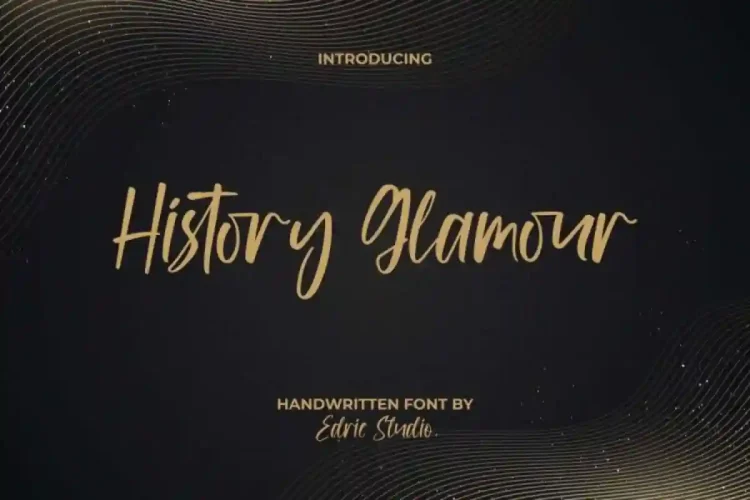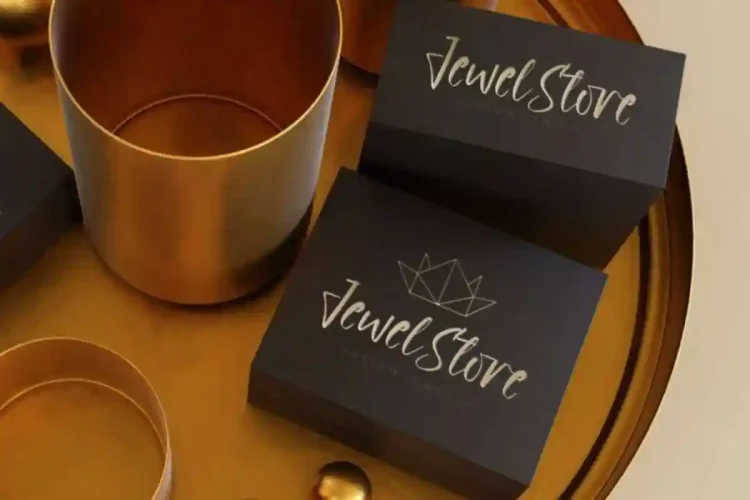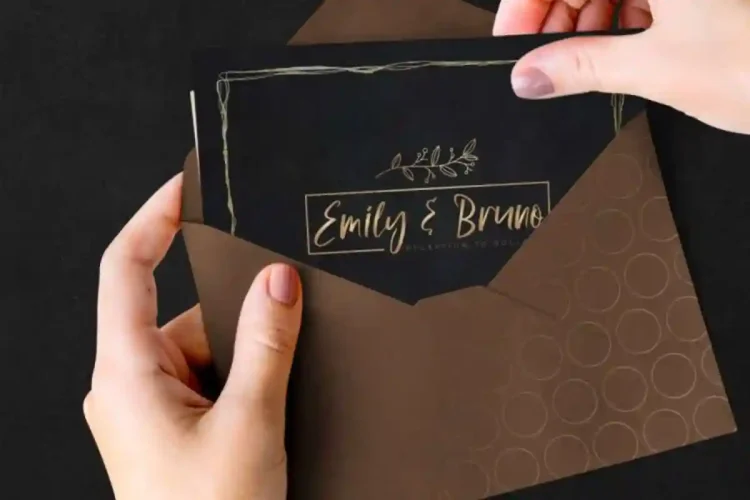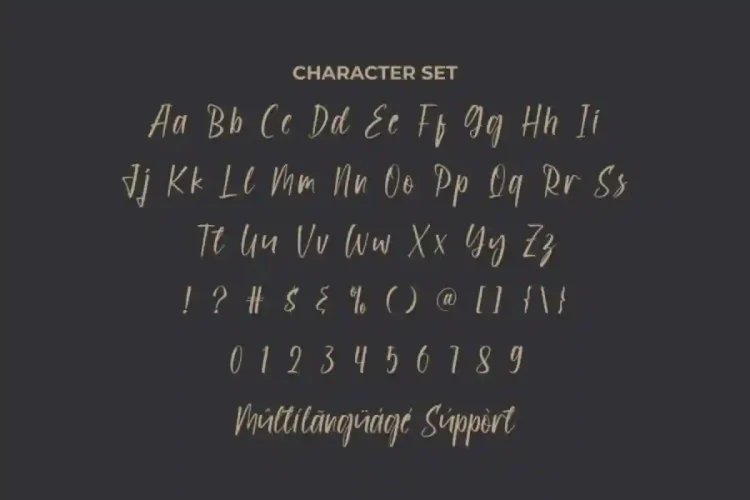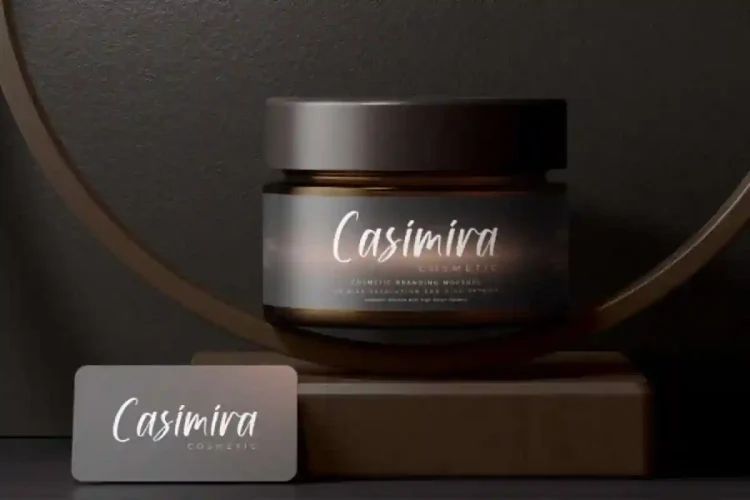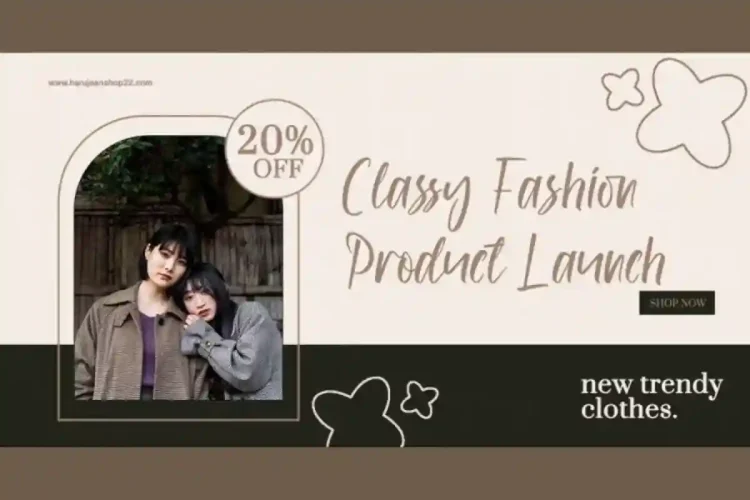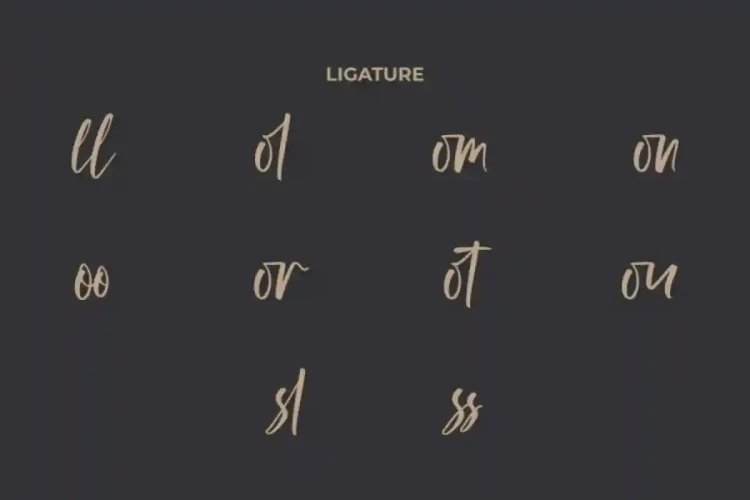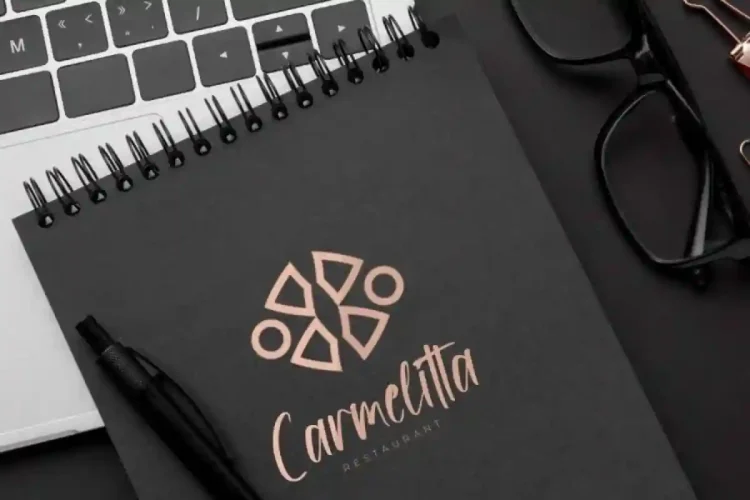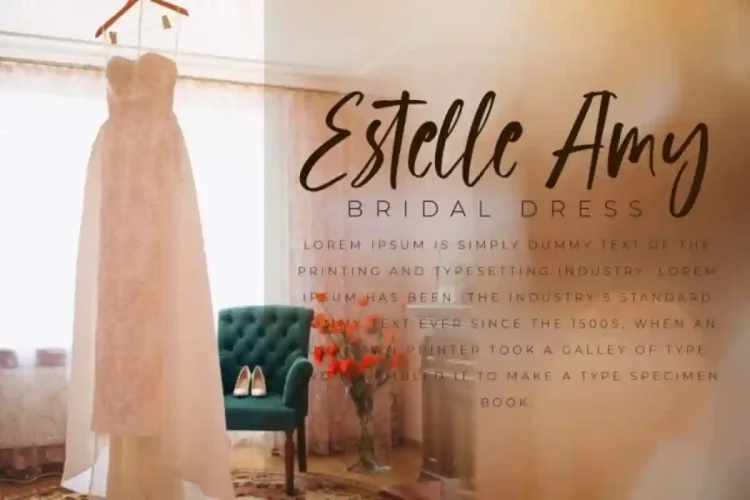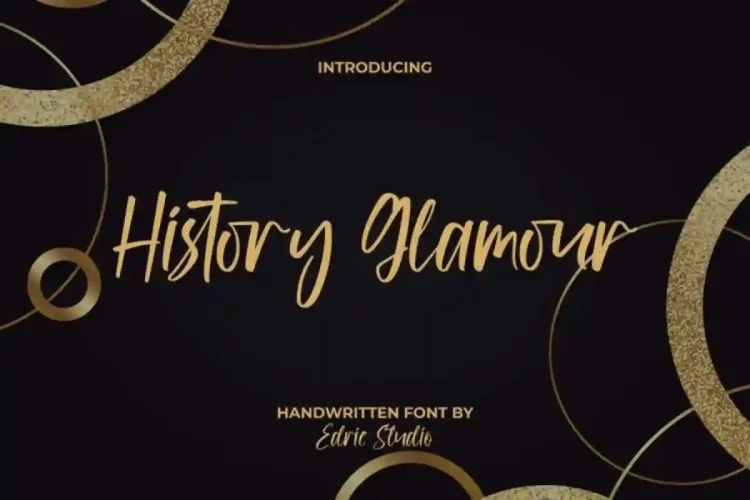
History Glamour Handwritting Font a luxurious handwritten font created with a minimalist touch that captures the elegance of natural handwriting. Each stroke delivers a timeless sense of sophistication, making it the perfect choice for designers, brands, and creatives who want to stand out.
History Glamour Handwritting Font comes with a full set of Uppercase and Lowercase Basic Characters, Number, a large range of Punctuation. It has a stunning characters set, perfectly managed with well spaced and kerning.
History Glamour Handwritting Font is a playful typeface with unique decoration in each character. Ready to use both on Windows machine or Mac with simple installations. It’s tested to work well in the Adobe Apps (Illustrator, Adobe InDesign, Adobe Photoshop) even work on Microsoft Word. PUA Encode Characters means you can access all characters easily – Fully accessible without additional design software.